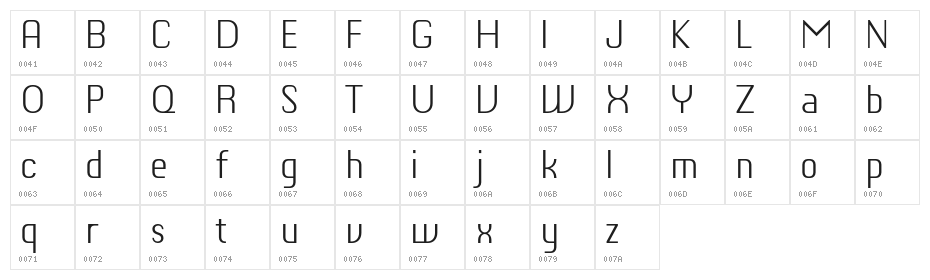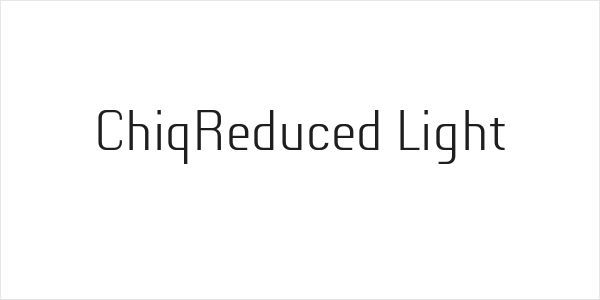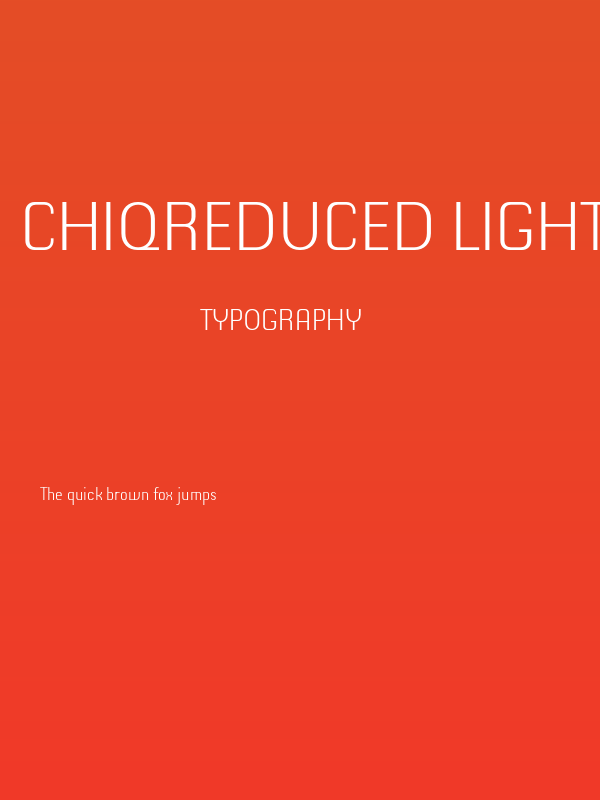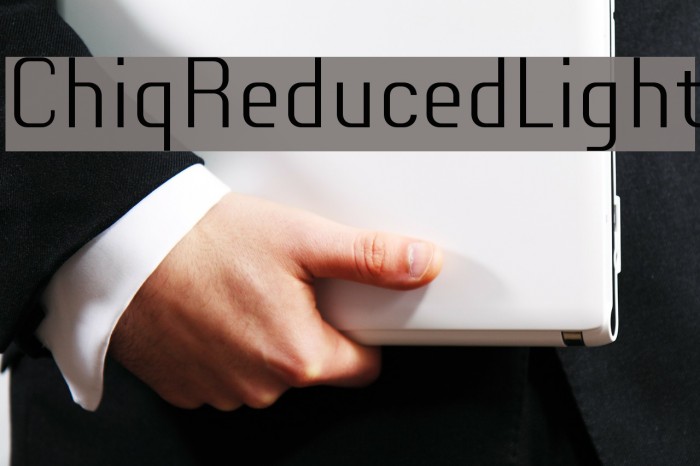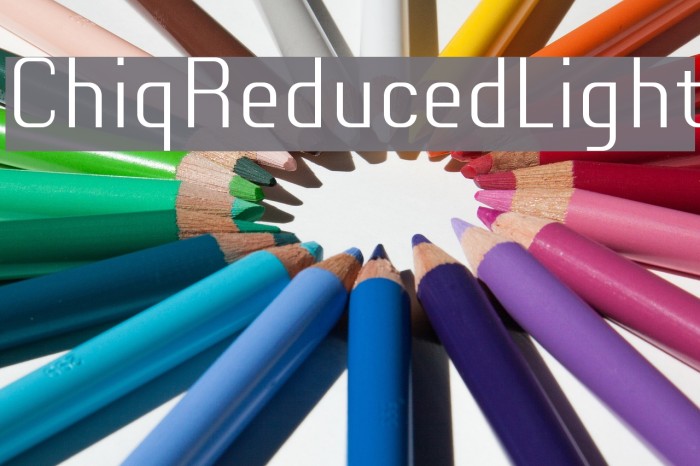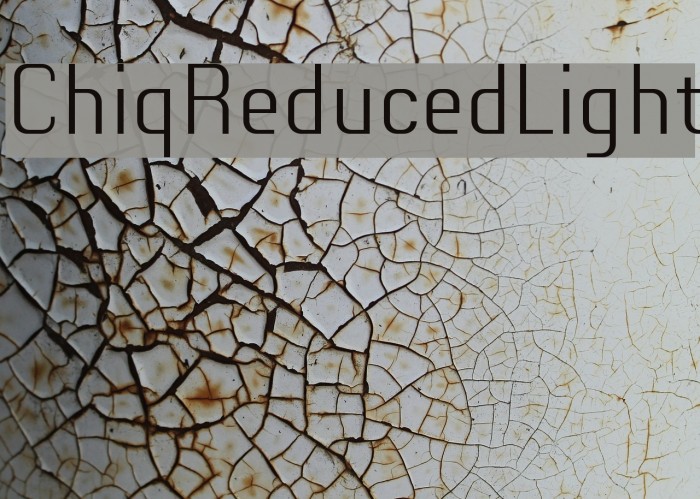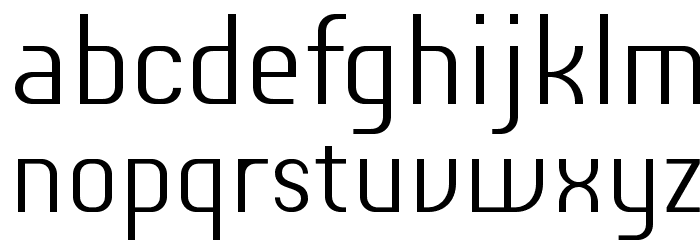
ChiqReduced-Light Font
ChiqReduced-Light Description
This font exhibits a clean, modern aesthetic with a geometric sans-serif style. The characters are crafted with precision, featuring uniform stroke widths that contribute to a minimalist and contemporary look. The uppercase letters are tall and slightly condensed, while the lowercase letters maintain a consistent height, enhancing readability. The numerals are straightforward and align well with the overall design, making them suitable for digital displays. Special characters are distinct and maintain the font's sleek appearance. This font is versatile, offering clarity and elegance in various applications.
| Proposed Projects | Ideal for digital interfaces, branding, advertising, and editorial design where clarity and modernity are desired. |